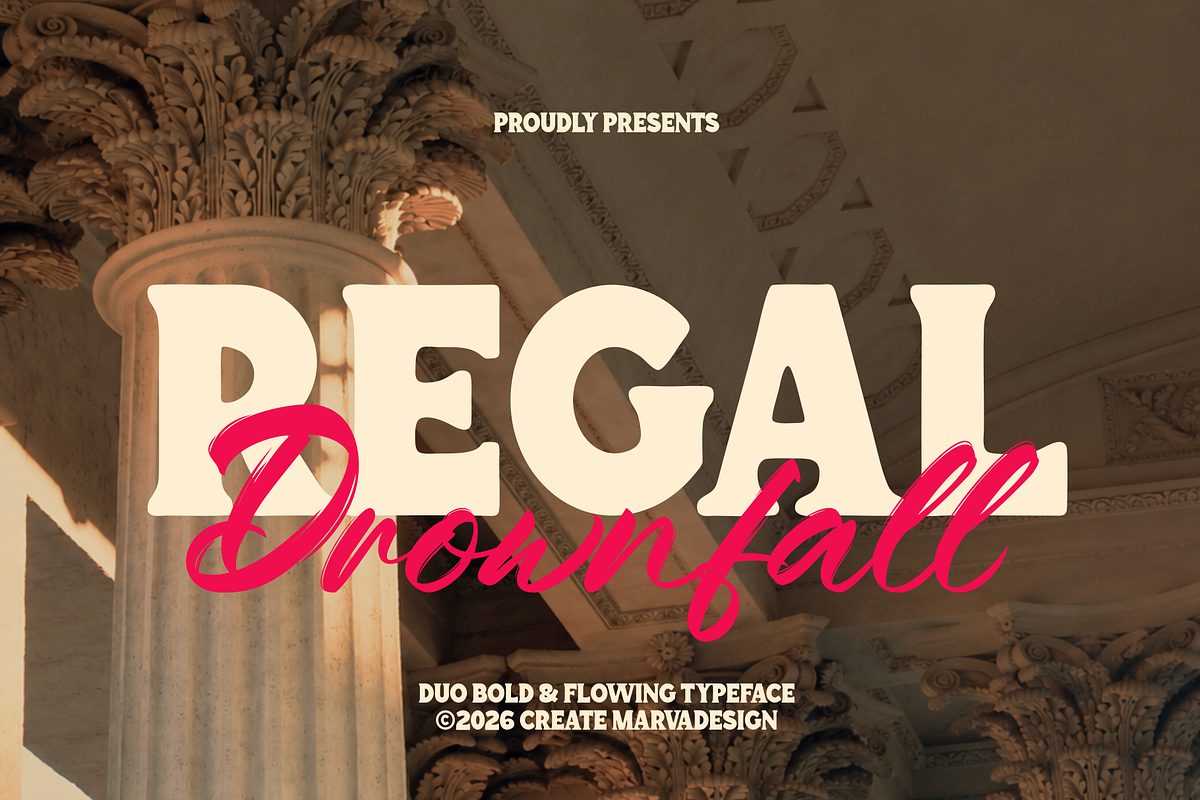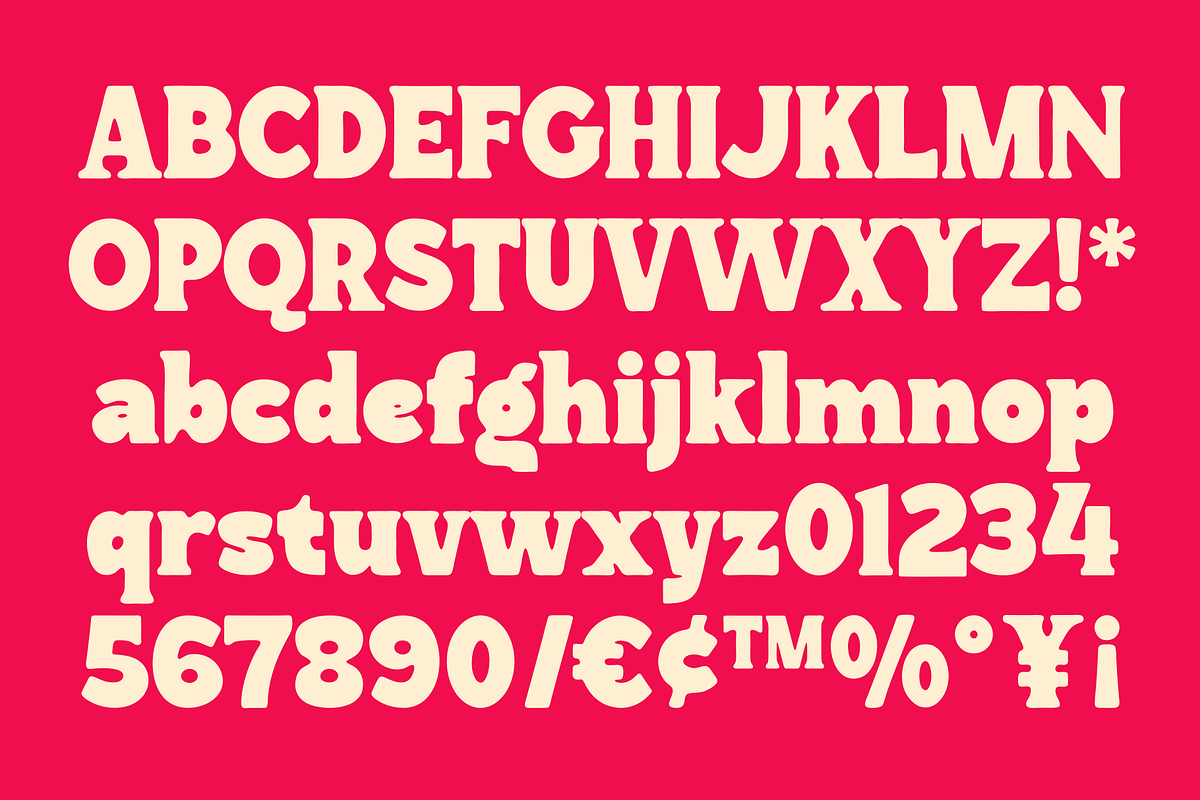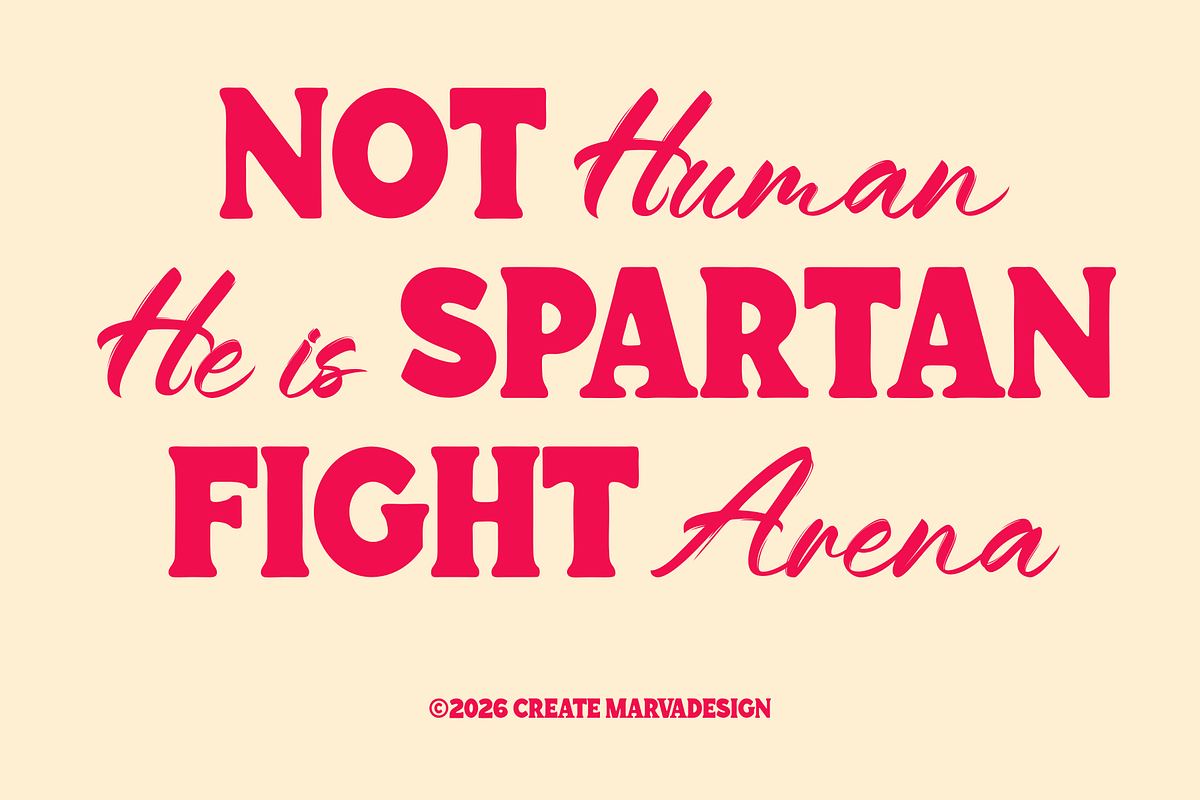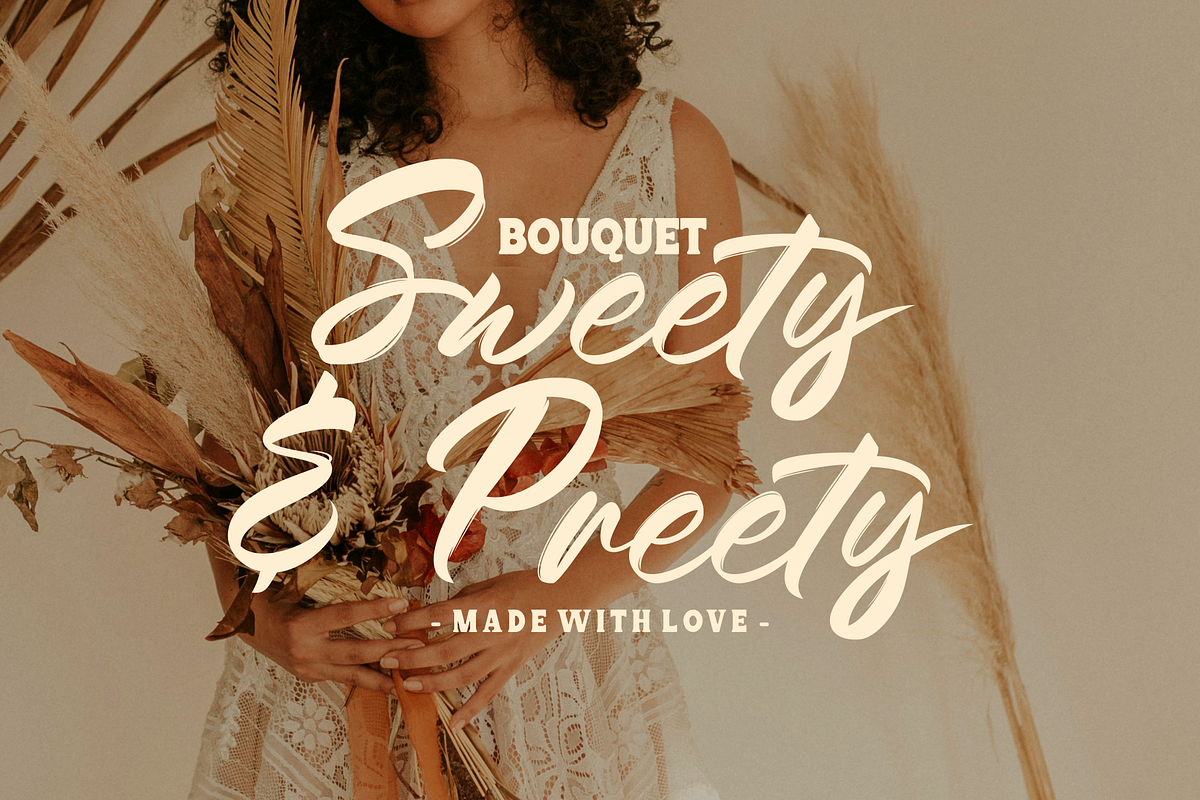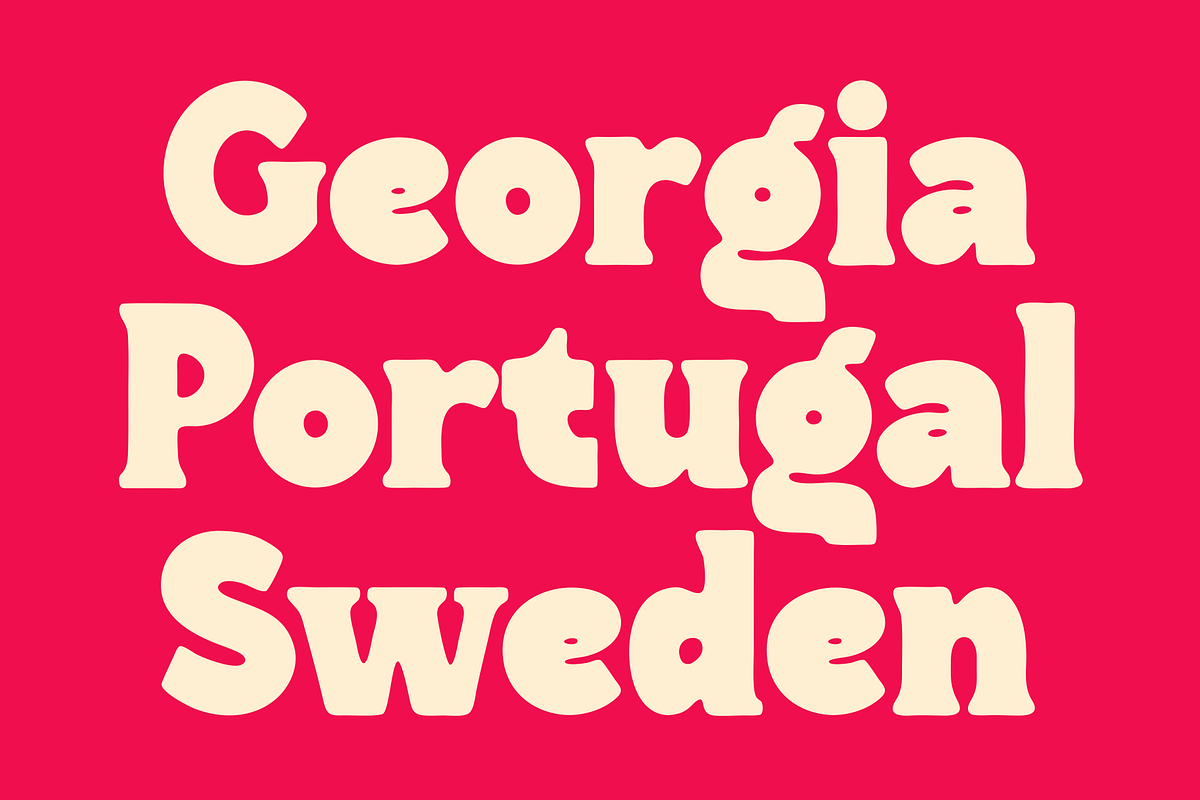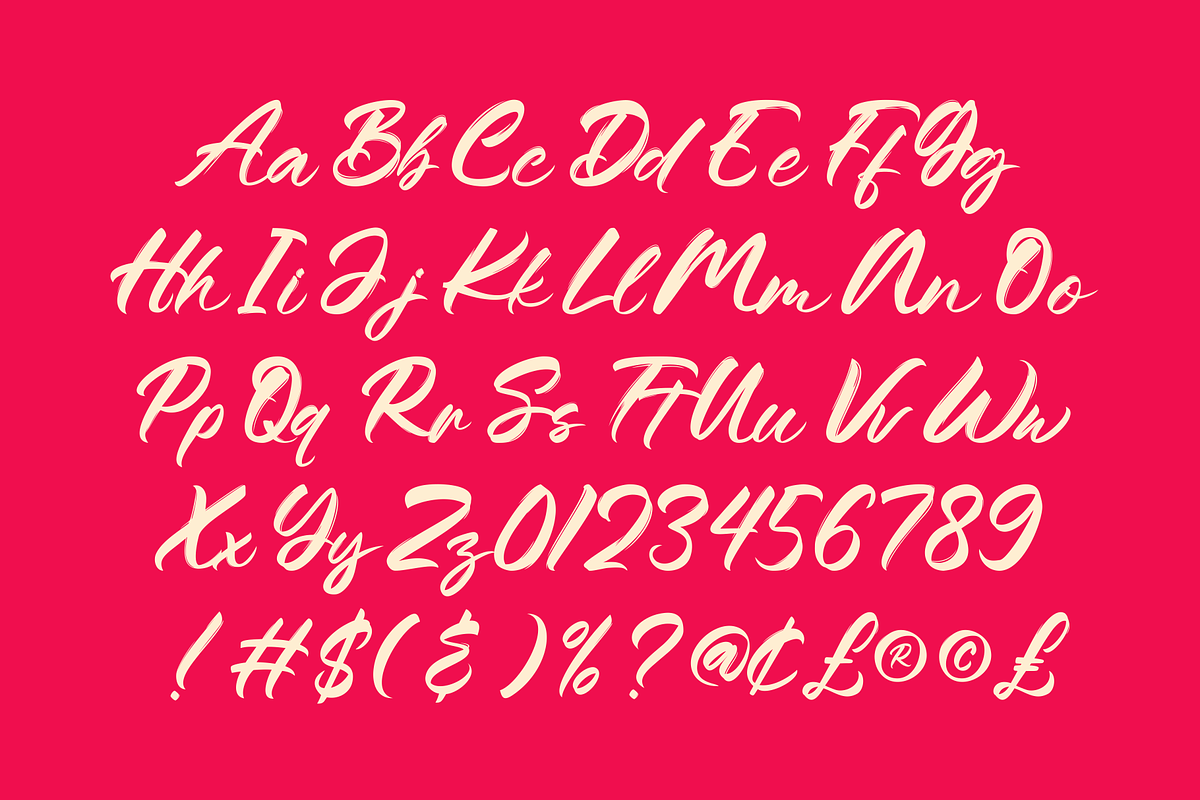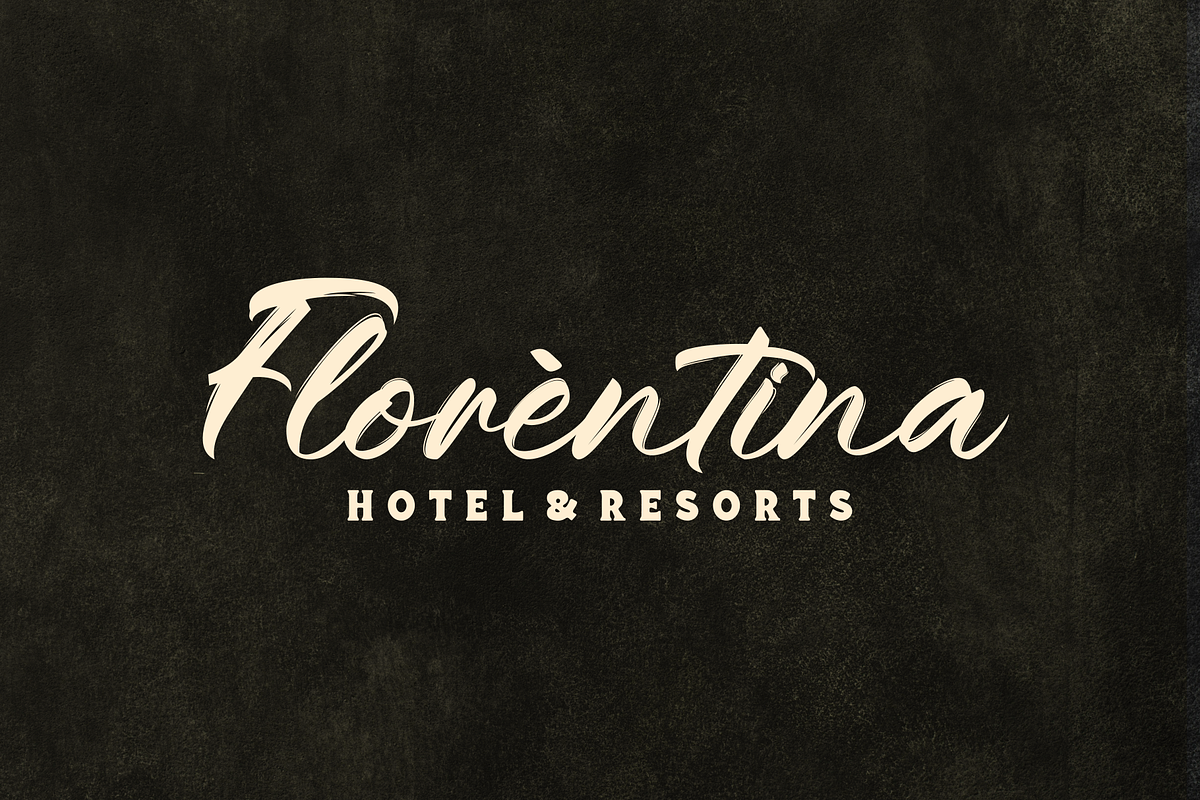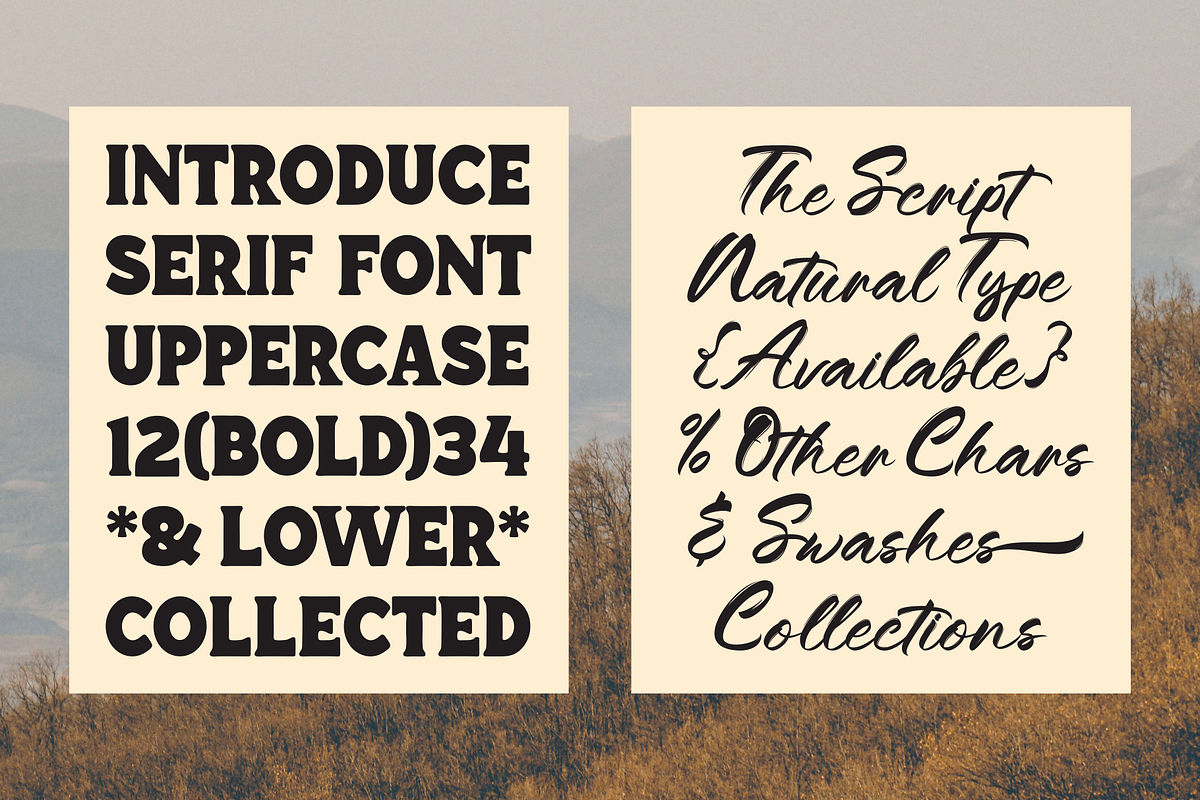
Regal Drownfall Font
Regal Drownfall is a sophisticated duo typeface that blends the commanding presence of a bold serif with the graceful fluidity of a handwritten script, creating a striking balance between elegance and expressive personality. The serif style features thick, confident strokes with soft rounded edges and vintage-inspired proportions, giving the characters a strong retro aesthetic while maintaining excellent readability and visual warmth. Its bold construction delivers a powerful typographic presence that feels luxurious, cinematic, and timeless, making it highly effective for headlines, logos, editorial layouts, posters, packaging, and branding projects that require a refined yet eye-catching appearance. The carefully crafted letterforms combine classic serif influences with playful modern curves, resulting in a style that feels nostalgic while still contemporary and versatile.
Complementing the serif is the Regal Drownfall script style, a flowing handwritten typeface characterized by energetic brush-like strokes, elegant swashes, and naturally connected letterforms that add movement and emotion to compositions. The script carries a romantic and expressive tone, with dynamic curves and smooth transitions that emulate authentic signature lettering while remaining highly legible. Its contrast between delicate thin strokes and bold sweeping gestures creates a luxurious handcrafted feel, making it ideal for wedding designs, fashion branding, social media graphics, product packaging, invitations, and feminine visual identities. When combined, the serif bold and script styles create a harmonious typographic pairing that allows designers to build layered, dramatic, and visually rich compositions with ease.
The styles include
Bold Serif
Script
Lowercase
Ligature